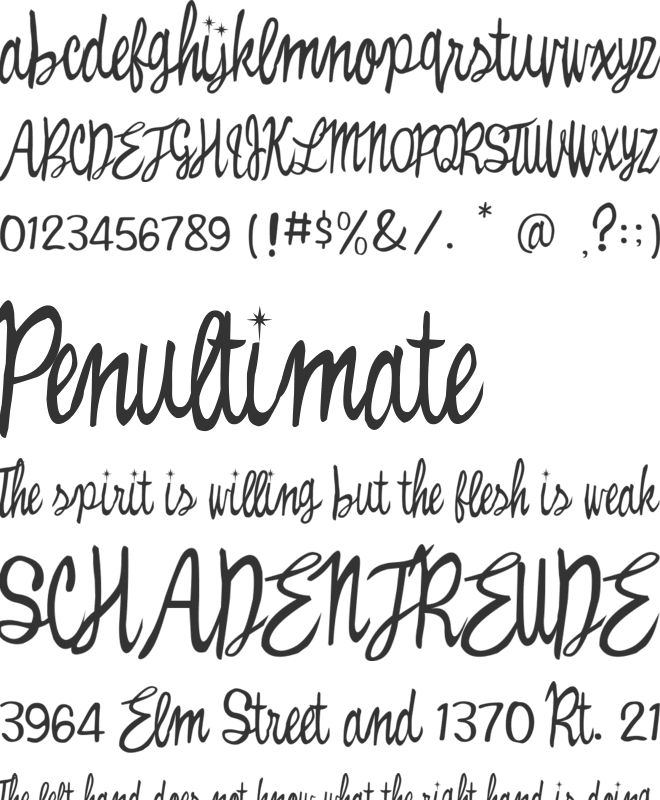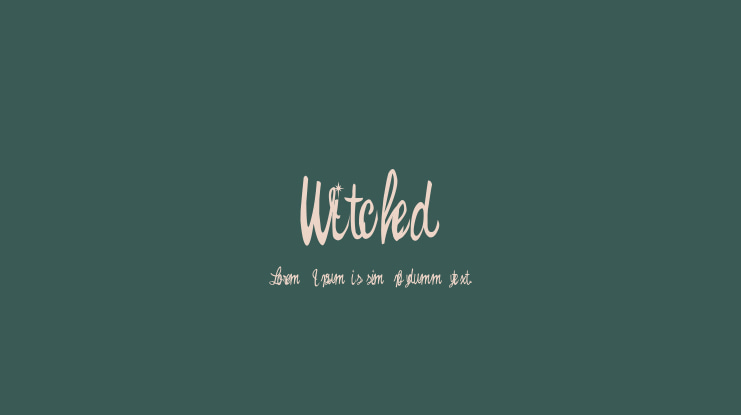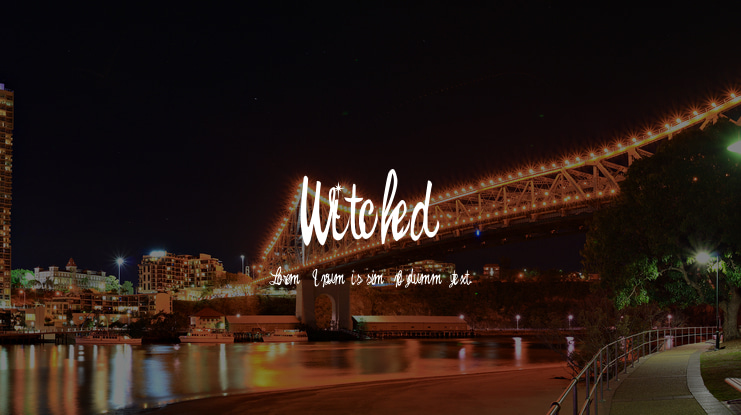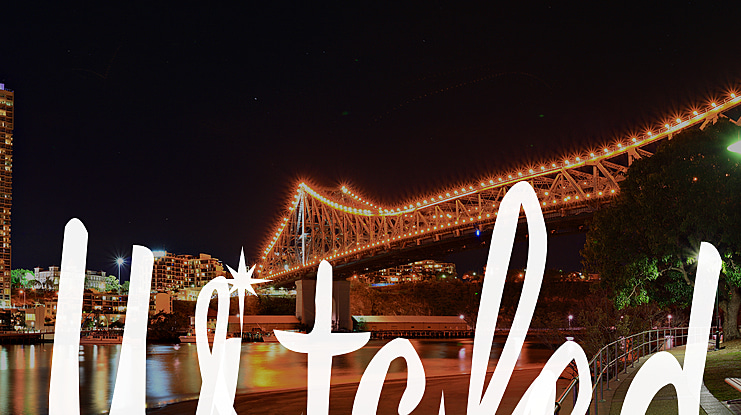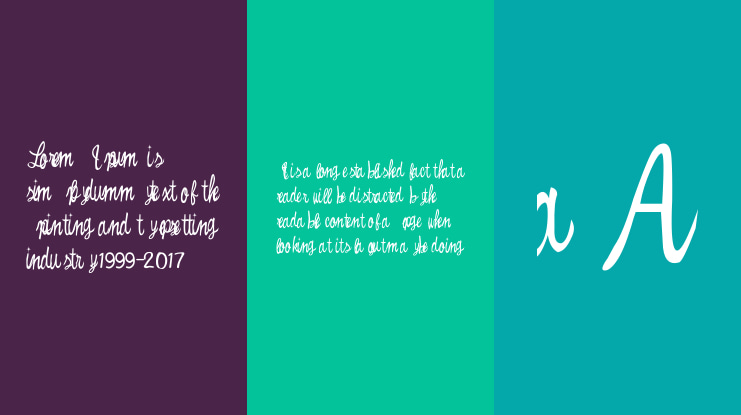
Witched Font
This is font was created with the aid of the original
cartoon drawings from the opening sequence of the
Tv show Bewitched. The artists created the words
'Bewitched' and 'next in color' only.
This font contains a full alphabet and numbers.
It is still a work in progress, and therefore is
not 100% complete.
I have worked hard for over a year to re-created
the letters and more as authentic as possible to
the original words.